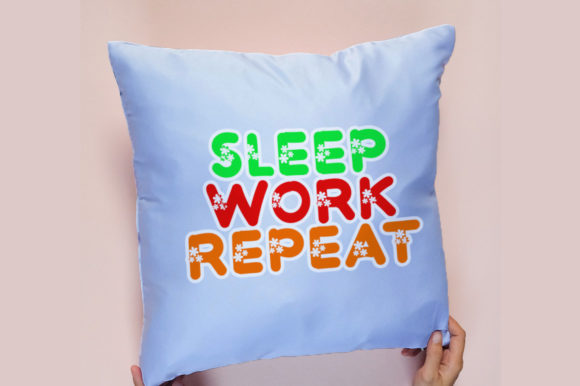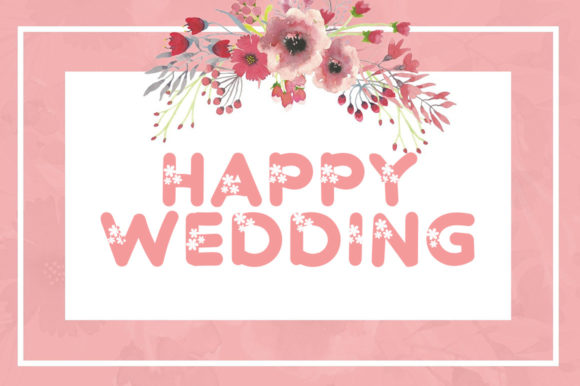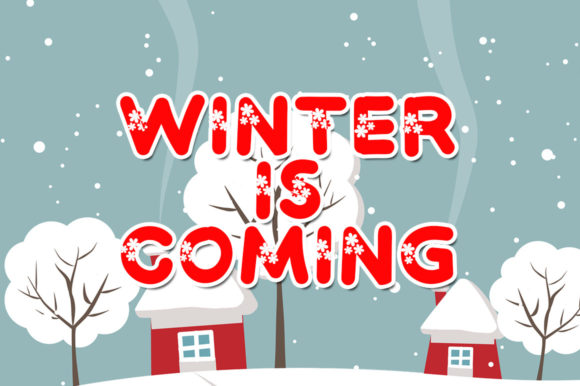
Introduction to Flower Hearth Font
Flower Hearth is a beautiful and sweet font.
It is fresh, clean, and elegant You can see little white flowers in this creative font.
Key Features of Flower Hearth Font